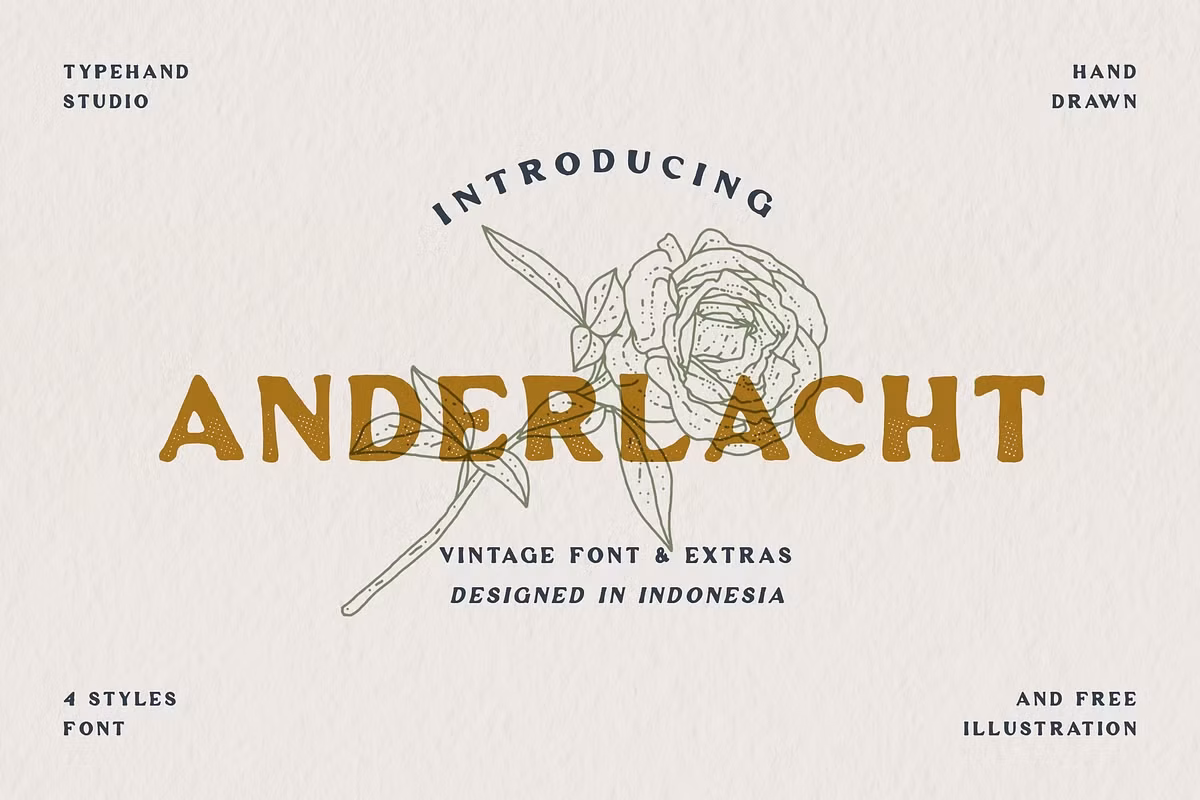
Anderlacht - Vintage Serif + Extras Font Free Download is a sophisticated and elegant typeface that blends vintage serif styles with modern design elements. This font includes not only the classic serif typeface but also a set of additional extras, offering more creative options for your projects. Perfect for logos, branding, invitations, posters, and more, this font adds a timeless, antique touch to any design. The included extras further enhance the flexibility of your creative work, giving you more decorative options. Whether you're working on a vintage brand, a nostalgic event, or a creative campaign, Anderlacht - Vintage Serif + Extras Font Free Download allows you to experiment with its beautiful style in personal projects before purchasing a commercial license. Add a touch of vintage elegance and charm to your designs with this versatile font.